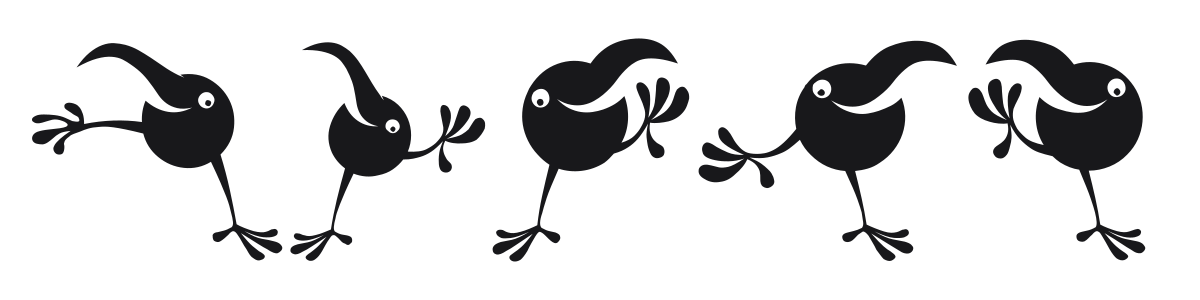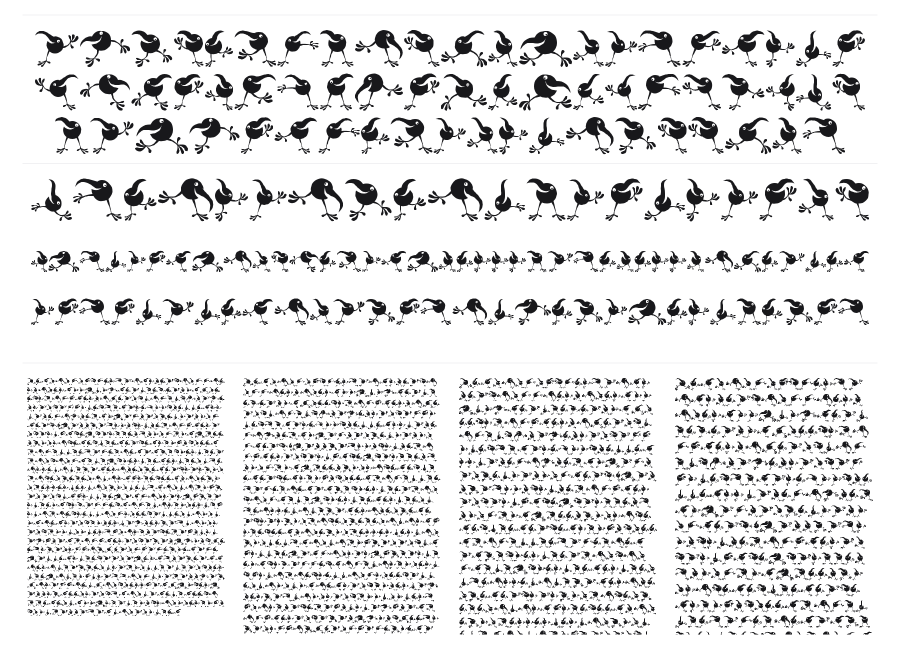
Gourdy
Gourdy is a dingbat font by Vladimir Nikolic made up entirely of small expressive bird characters in solid black silhouette. Each glyph captures a different pose or gesture, so stringing characters together creates a lively parade of birds. Great for decorative borders, children's projects, or any design that needs a touch of natural charm.